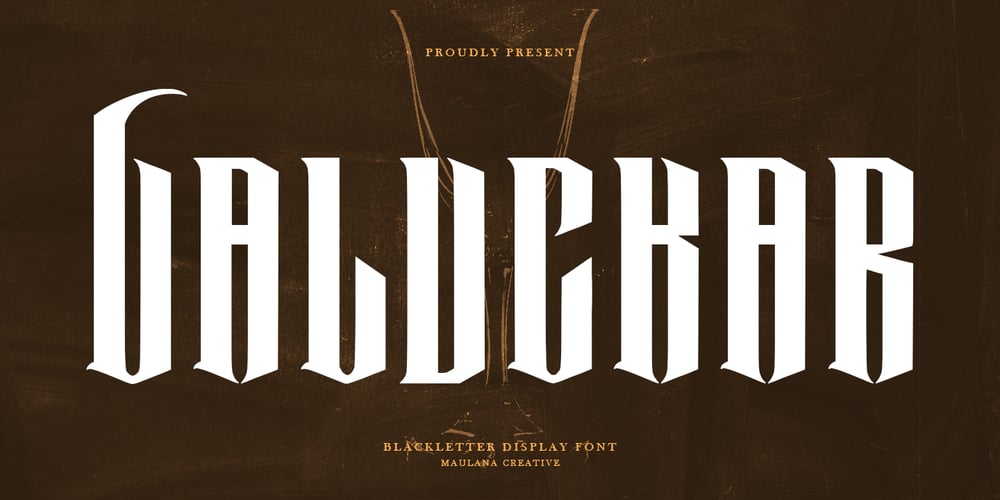
MC Valuckar Font Family was designed by Gilang Maulana and published by Maulana Creative. MC Valuckar contains 1 styles and family package options. Introducing Valuckar Blackletter Font is a handmade Modern Victorian handlettering, which is combining modern and classic typography with some awesome alternates. Yes we back to early 1800s, bring classic touch on this decade.Thanks for use this font.Maulana Creative.